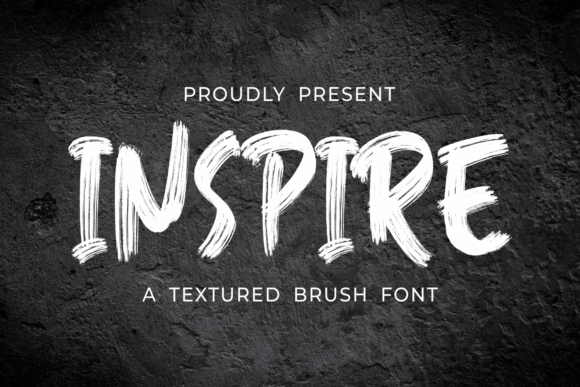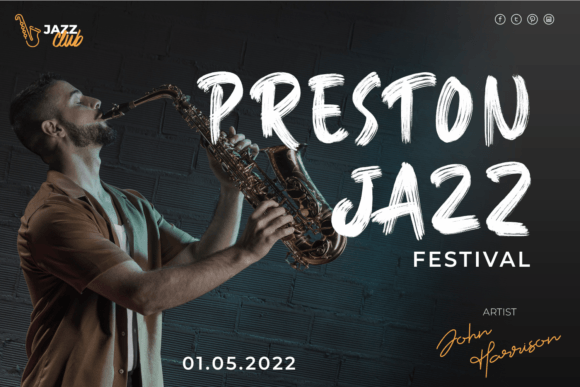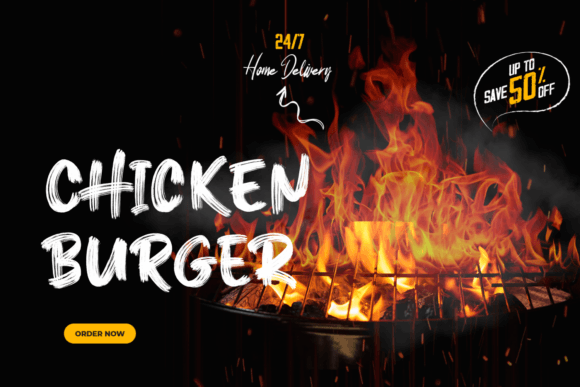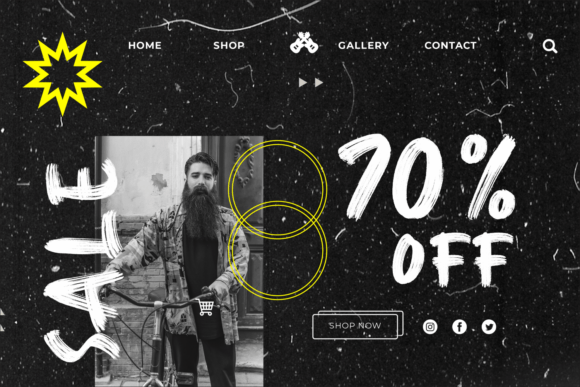
Inspire Font
About the Inspire Font
The Inspire Font offers a perfect balance of form and function for your design needs. Inspire is bold, tightly spaced, and retains all of the brush imperfections.
It has a nice contrast with opaque parts and transparent ones.
It will give your work an authentic and realistic paintbrush look!
Inspire excels in headline applications, short impactful statements, and branding elements where a hand-painted feel is desired. It’s ideal for posters, logos, and short-form packaging copy. However, its strong texture and tight spacing make it unsuitable for body text or long paragraphs; readability suffers significantly at smaller sizes. Avoid using it in UI contexts or situations requiring high levels of legibility.
To complement its bold, expressive personality, pair Inspire with a clean sans-serif like Montserrat for a contemporary contrast, or a classic serif such as Garamond for a more traditional feel. A delicate script font, used sparingly, could add an elegant touch, while a geometric sans-serif would provide a modern counterpoint to its organic strokes.
Inspire’s core personality is energetic and expressive, conveying authenticity and a handcrafted aesthetic. It’s best suited for brands that value a bold, slightly rebellious, and artistic image.
Inspire Font Usage Examples
Inspire Font Example